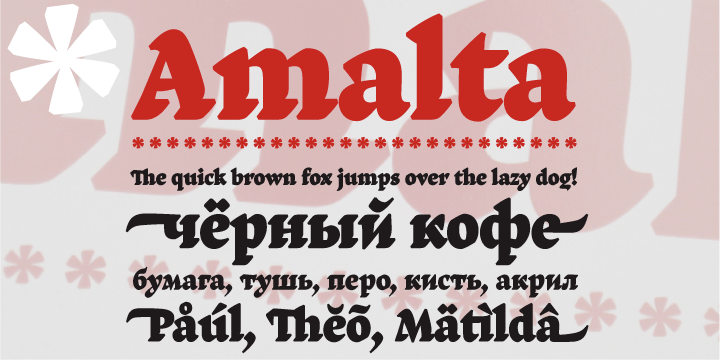
Amalta Font Free Download provides designers with sophisticated typography that combines Mediterranean elegance with contemporary functionality for culturally rich design applications. This commercial font requires purchase for business use, but you can download it for free for testing purposes to evaluate its distinctive European characteristics in your creative projects.
Amalta Font demonstrates remarkable versatility across numerous design applications including Mediterranean restaurant branding, European travel marketing, cultural heritage communications, artisanal food packaging, boutique hotel materials, wine industry promotions, traditional craft marketing, and sophisticated hospitality presentations. Its refined character makes it particularly effective for projects requiring cultural authenticity while maintaining contemporary appeal, ensuring your designs convey European sophistication and Mediterranean warmth across both digital platforms and premium print materials.
What makes Amalta Font truly exciting is its masterful interpretation of Mediterranean typography traditions enhanced with modern design sensibilities that creates compelling cultural communications. The font features meticulously crafted letterforms that incorporate elegant proportions and refined details reminiscent of European craftsmanship and Mediterranean coastal aesthetics while maintaining excellent readability and professional application. Its distinctive character construction draws inspiration from ancient Mediterranean cultures and contemporary European design, creating text that feels both culturally grounded and contemporarily relevant. The font's optimized spacing and harmonious character relationships ensure superior performance across various cultural applications while preserving the characteristic warmth that defines its Mediterranean personality.
Amalta Font offers a comprehensive type family designed to support diverse cultural and hospitality design requirements. The family typically includes light, regular, medium, bold, and heavy weights, along with corresponding italic variations that provide complete flexibility for sophisticated European typography compositions. Many versions feature extended character sets with cultural symbols, Mediterranean ornaments, and specialized glyphs that enhance authentic European aesthetic applications.
The Amalta Font Free Download represents outstanding value for designers working on cultural and hospitality-focused projects across multiple sectors. Whether developing Mediterranean cuisine branding, creating European travel materials, designing cultural heritage communications, or producing artisanal product content, this font delivers consistent sophistication and memorable cultural appeal. Its Mediterranean characteristics make it particularly effective for industries including hospitality, cultural tourism, artisanal foods, and European lifestyle sectors seeking to communicate authentic cultural heritage and sophisticated elegance.
For maximum effectiveness, Amalta Font combines beautifully with warm, Mediterranean color palettes and cultural design elements that reinforce its European message. Its sophisticated presence excels in headline applications while maintaining excellent performance in cultural communication contexts. The font's Mediterranean sophistication and European authenticity make it an essential tool for creating culturally respectful communications that resonate with audiences appreciating European heritage and Mediterranean lifestyle.